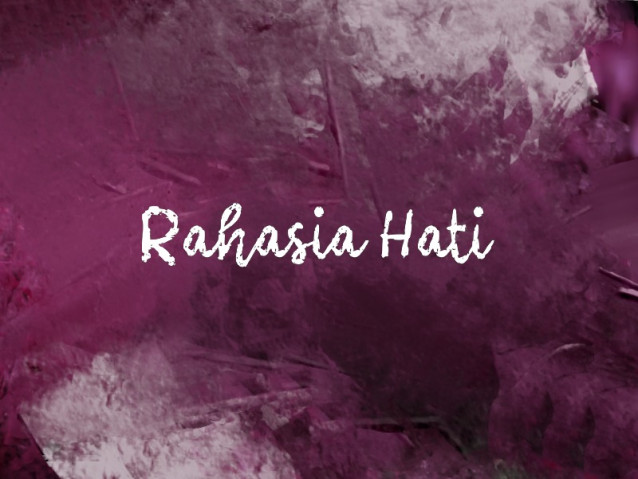
Rahasia Hati Font
Rahasia Hati Font is a simple and modern display font suitable for quotes, logos, headings, titles, and many more. Use it on any of your creative projects, and your designs will become outstanding!